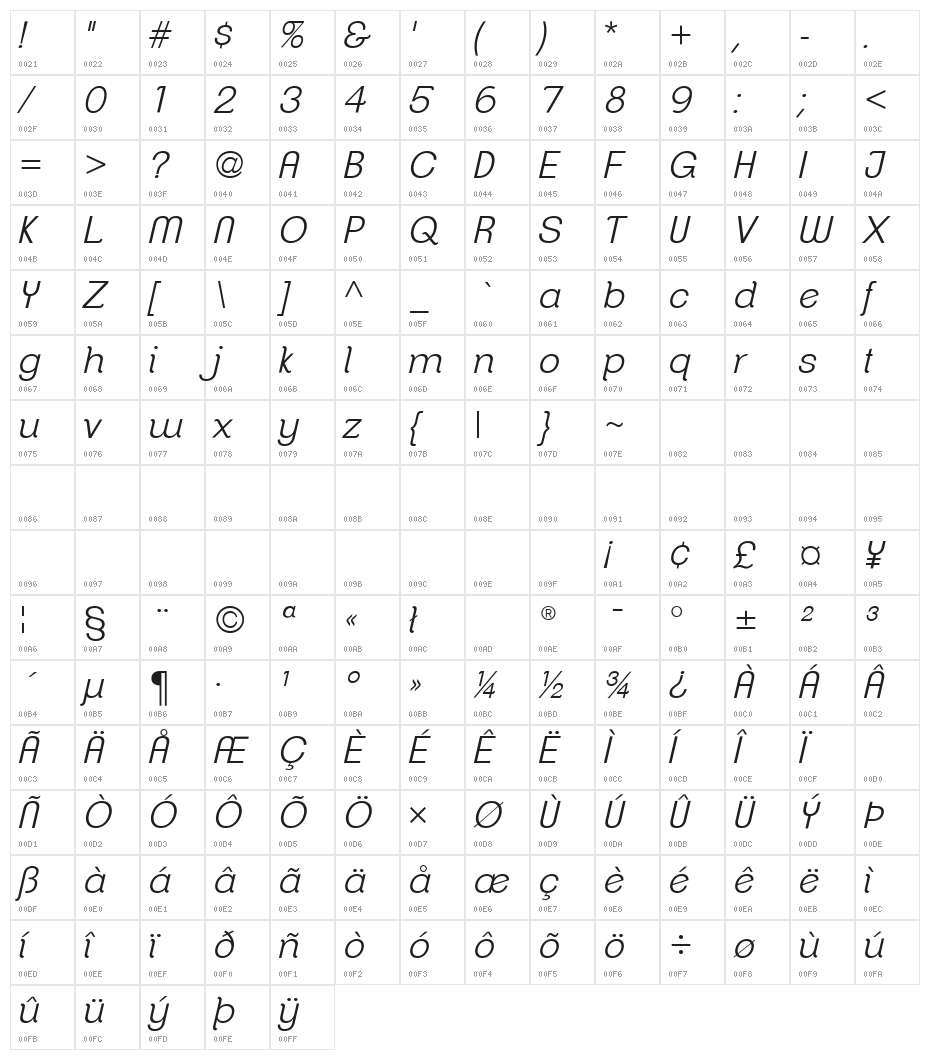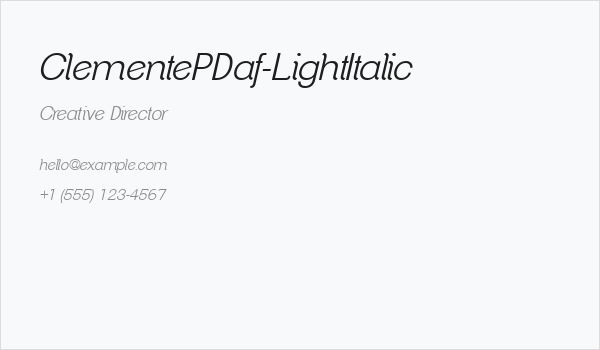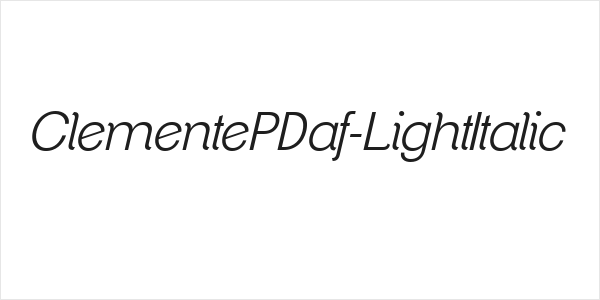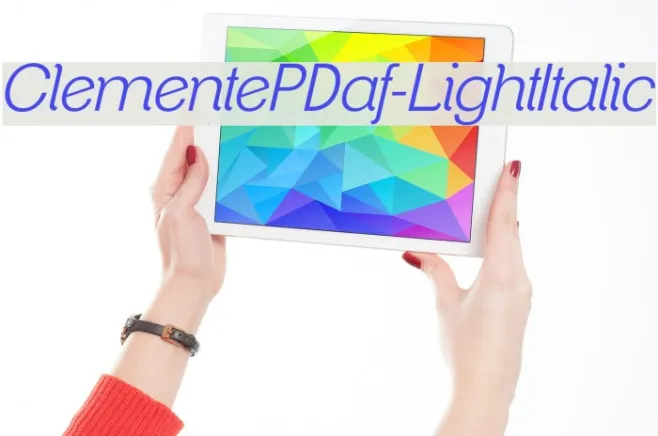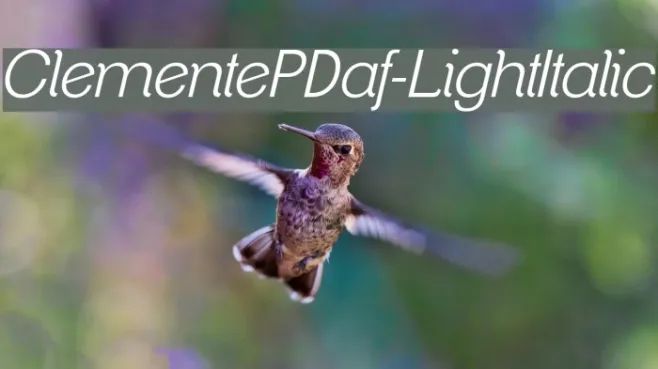
ClementePDaf-LightItalic Font
ClementePDaf-LightItalic Description
This font features a sleek and elegant design with a slight slant, giving it an italicized appearance. The characters are crafted with smooth curves and a consistent stroke width, providing a harmonious and fluid look. The uppercase letters maintain a uniform height, while the lowercase letters exhibit a gentle roundness, enhancing readability. Numerals are clear and distinct, matching the overall style of the alphabet. Special characters are well-integrated, maintaining the font's cohesive aesthetic. This font's light weight and italic style make it suitable for applications where a touch of sophistication and modernity is desired.
| Proposed Projects | Ideal for fashion magazines, elegant invitations, branding for luxury products, and modern web design. |